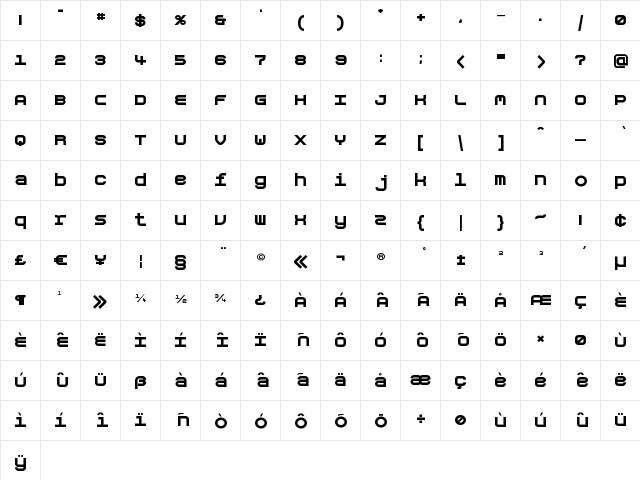
Aspirin-Overdose Regular
Design Context for Aspirin-Overdose Typeface
Aspirin-Overdose takes a measured approach to typography — its balanced proportions and neutral character make it a reliable workhorse for both digital and print work.